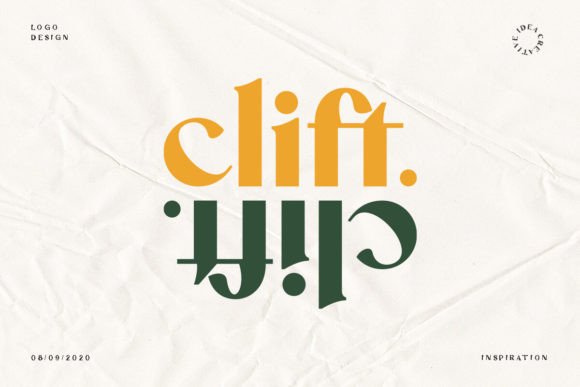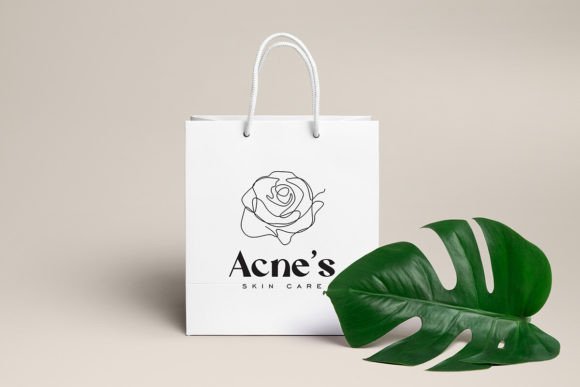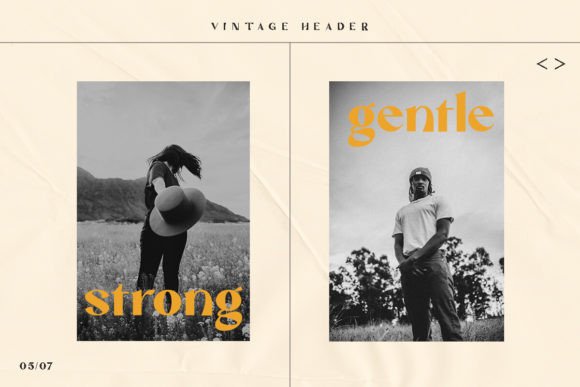
Introduction to Mattire Font Font
Fonts play a crucial role in design, and the Mattire Font font is a typeface that brings both character and versatility to any project. Whether you’re working on a branding project, a website, or a print design, the Mattire Font font offers a unique style that can elevate your work.
Mattire is a stylish font that is both classic and minimal.
A bold, high contrast font that is perfect for header magazine, web, feminine logo marks & editorial design Itβs a mix between a classic serif and a futuristic sans serif.
Key Features of Mattire Font Font
Why Choose Mattire Font Font?
The Mattire Font font is more than just a typeface β it’s a design tool that helps you communicate your message with style and clarity. Its unique character set and versatile design make it suitable for a wide range of applications, from elegant invitations to bold headlines.
With its carefully crafted letterforms and balanced proportions, the Mattire Font font ensures readability and visual appeal across all mediums.
What makes Mattire Font font special?
The Mattire Font font stands out with its unique design, exceptional readability, and versatility across various design applications.